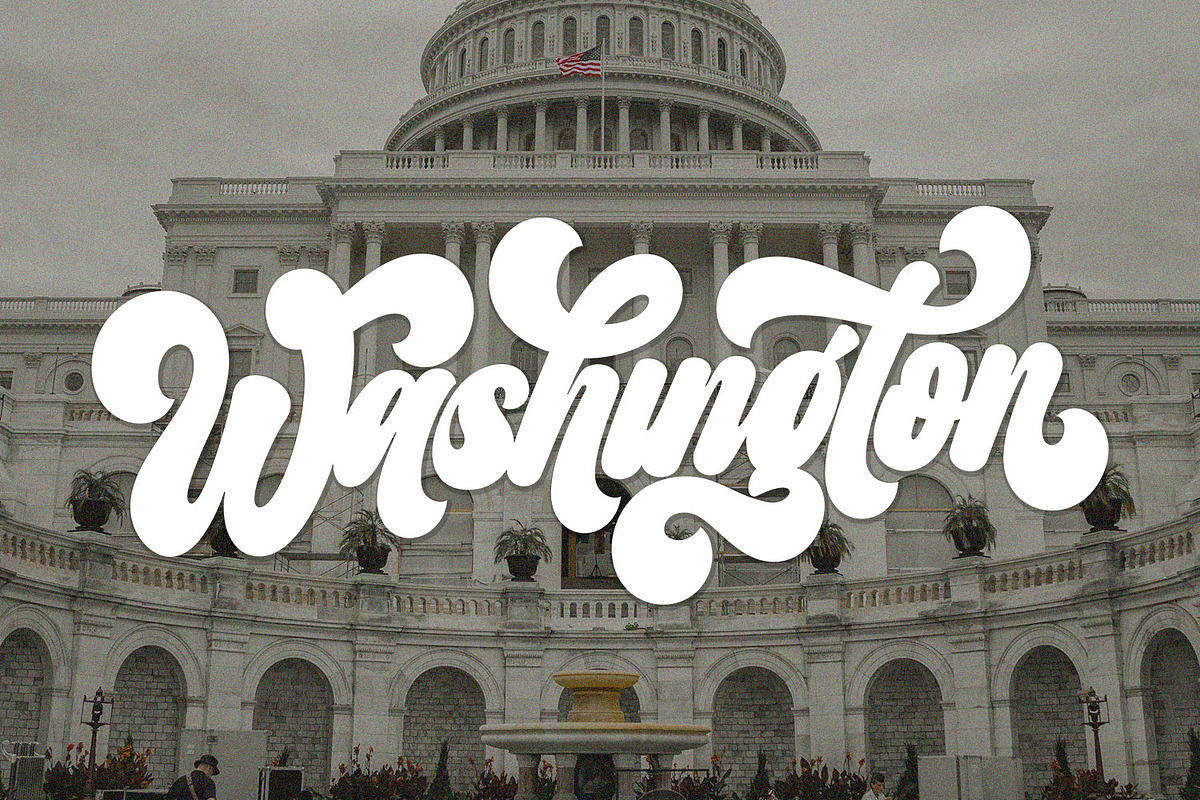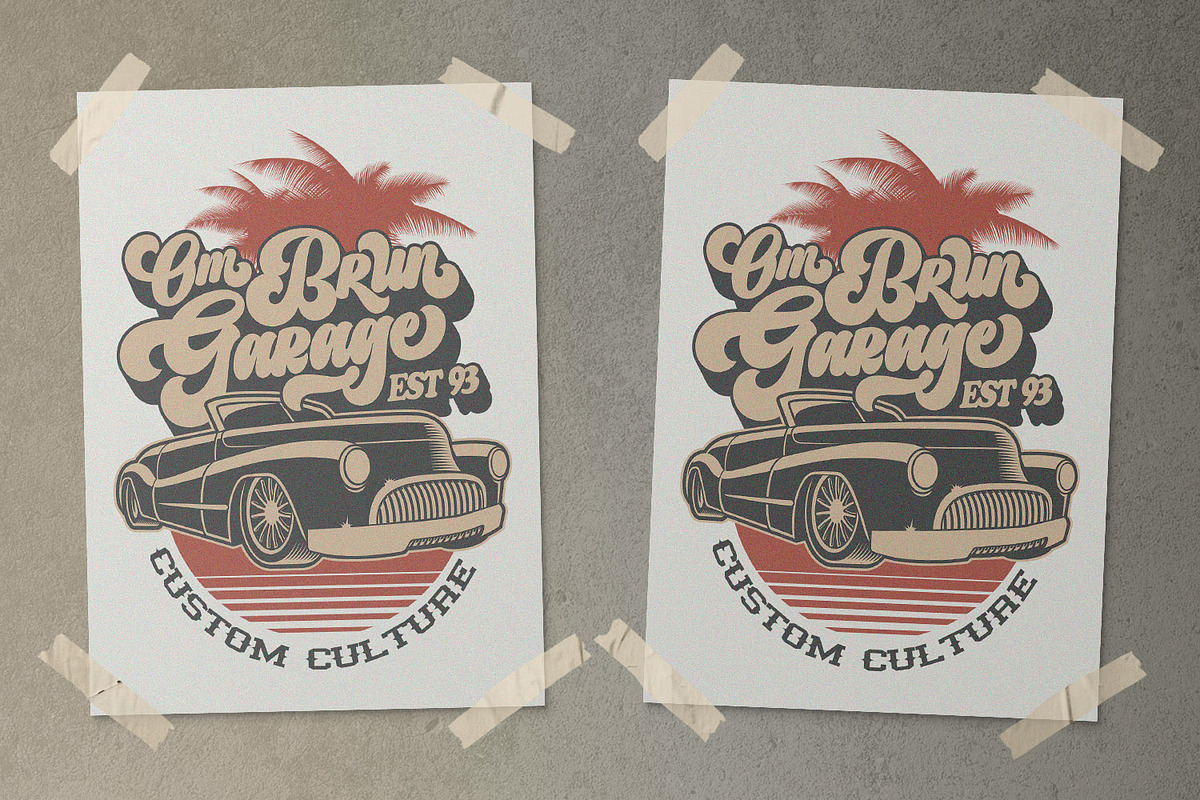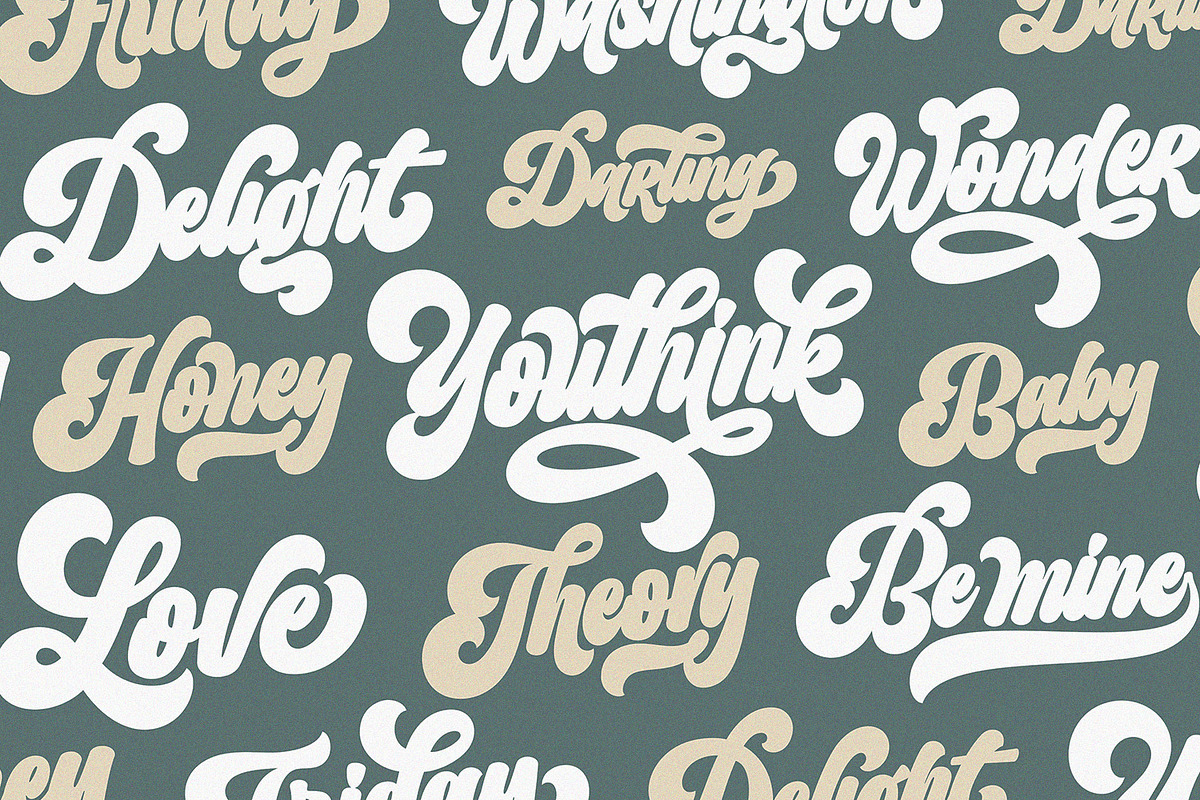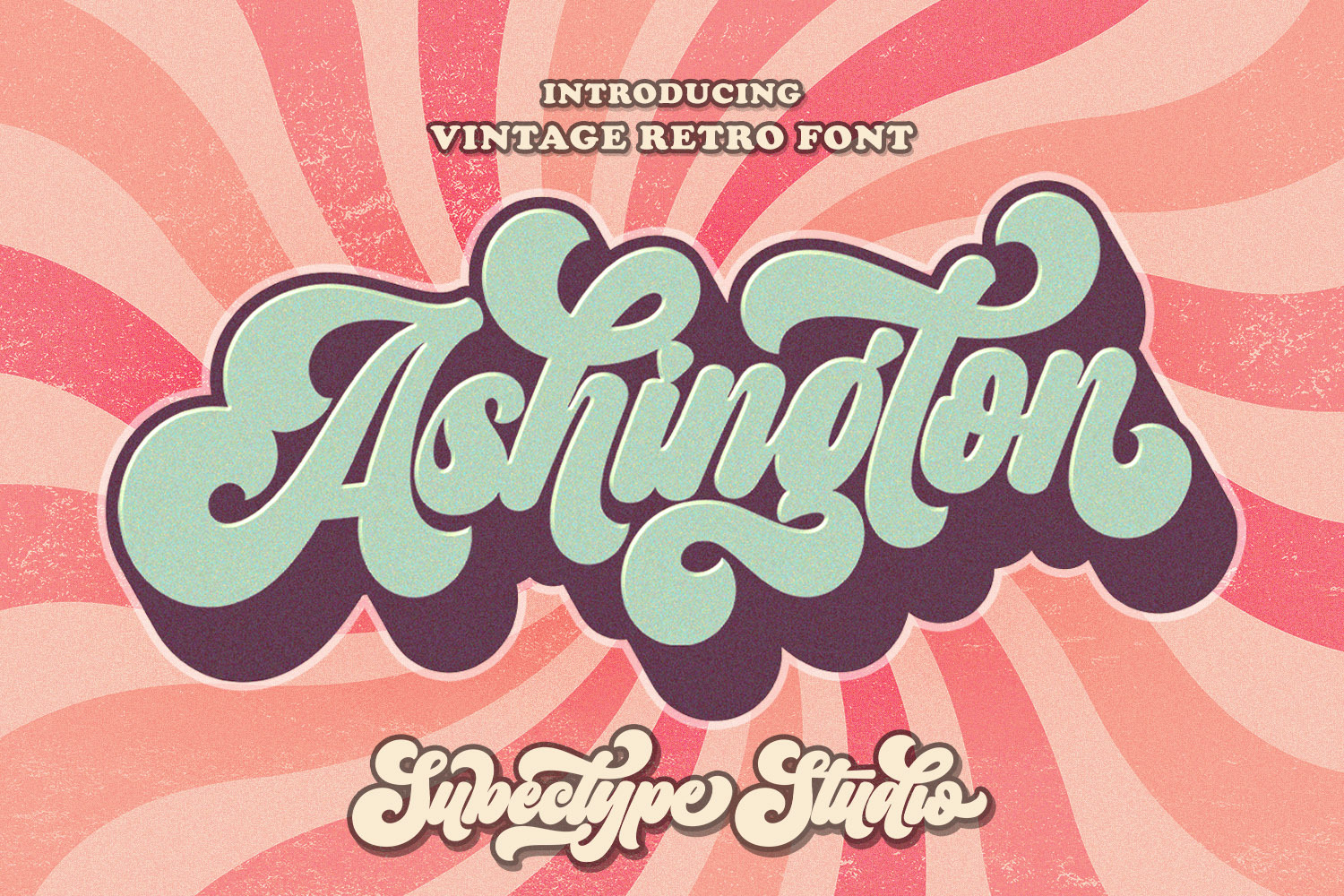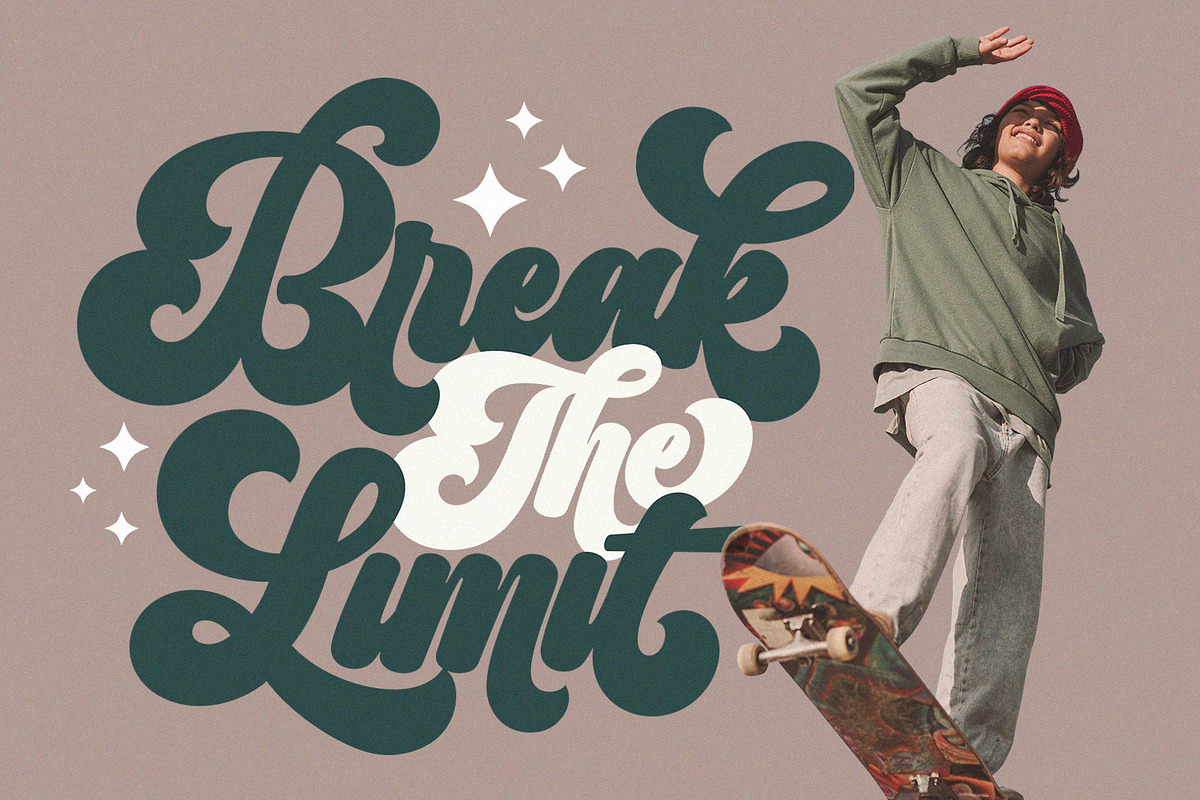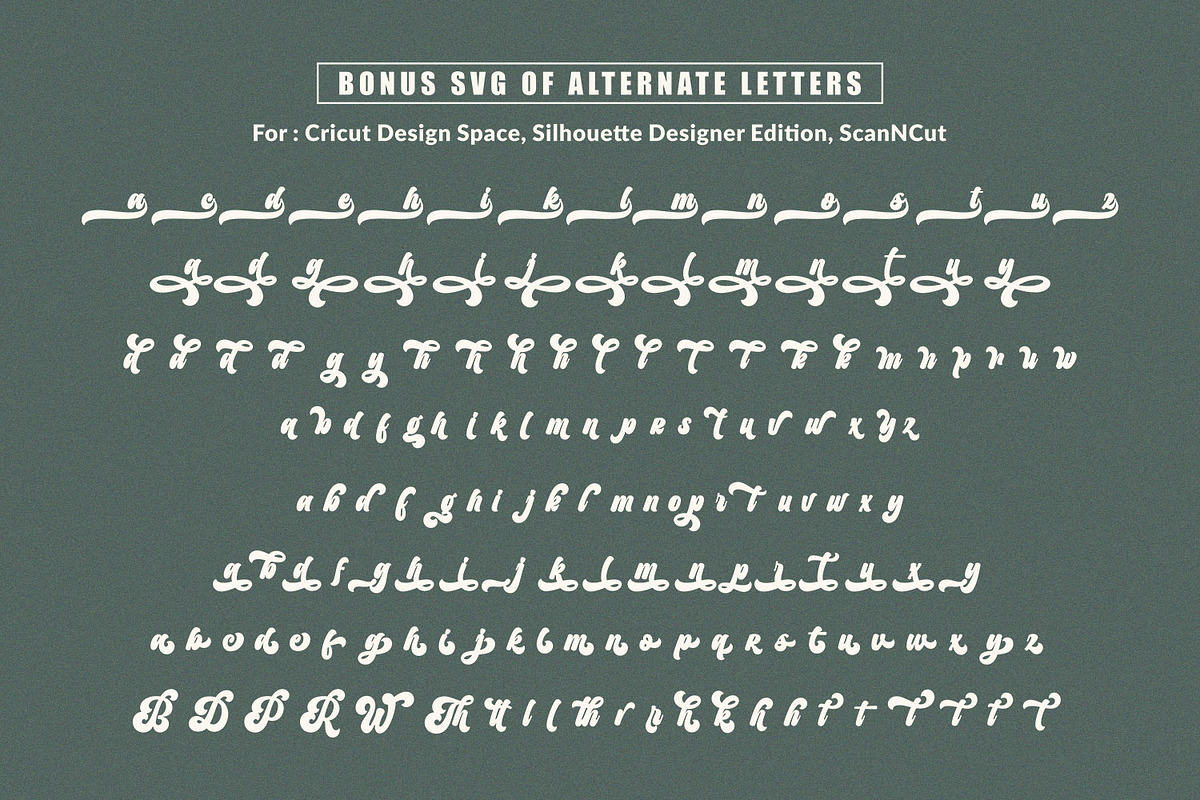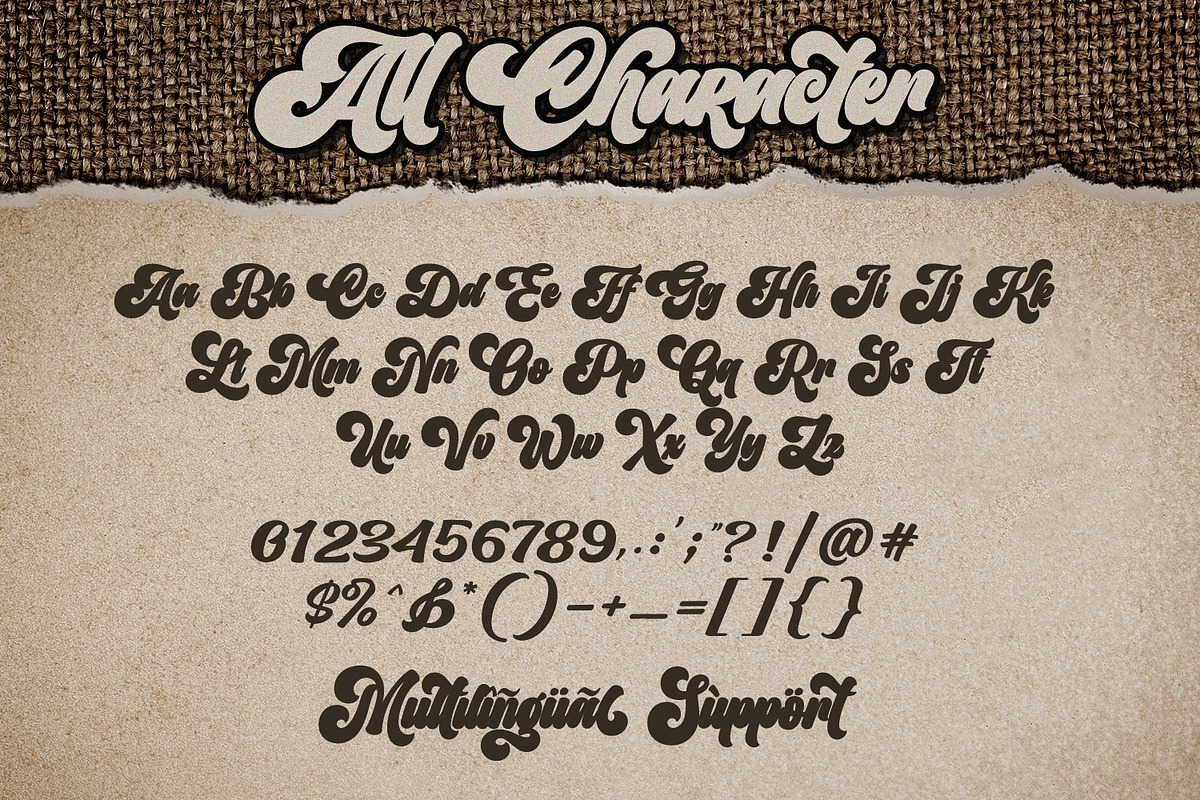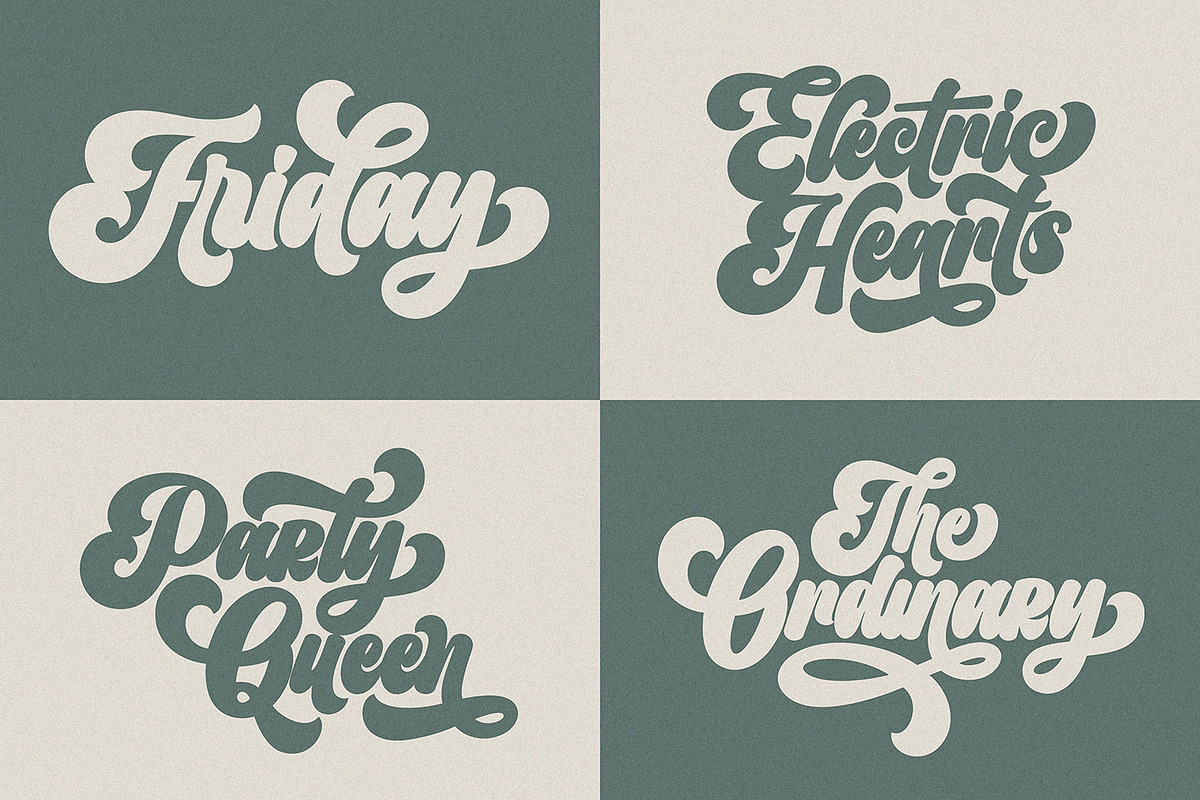
Retro Ashington - Vintage Font
The Ashington is a Vintage retro font. Inspired from retro typography and lettering in the 70's and 80's combine with bold typography style. This font perfect for vintage and retro design, badge, logos,t-shirt, poster, branding, packaging, signage, book coverand so much more!